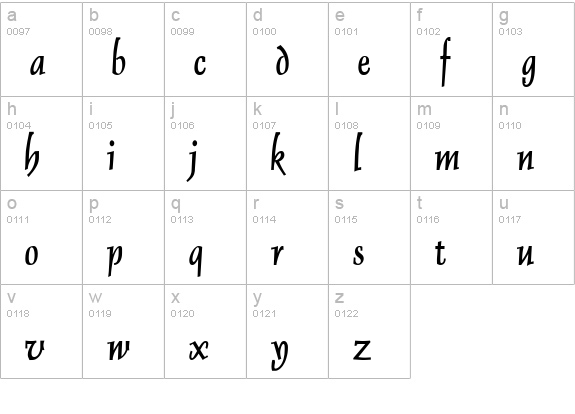
Dolphin Condensed Bold is a strong, high-contrast, condensed-width variant in the Dolphin typeface family \xE2\x80\x94 well suited to headlines, attention-grabbing titles, and strong calls-to-action.
Introducing Dolphin Condensed Bold font, a sleek and modern typeface designed to make your designs stand out with its bold and eye-catching appearance. This versatile font is perfect for headlines, titles, posters, and other design projects that require a strong and impactful look. Dolphin Condensed Bold font features clean lines and a condensed design that exudes confidence and style. Its bold weight commands attention while remaining easy to read, making it ideal for both print and digital applications. Best of all, Dolphin Condensed Bold font is available for free download at FontsMarket.com. Whether you're a designer looking to add a touch of sophistication to your projects or a business owner seeking a distinctive font for branding, Dolphin Condensed Bold font is sure to make a lasting impression. Download it today and elevate your designs to the next level!